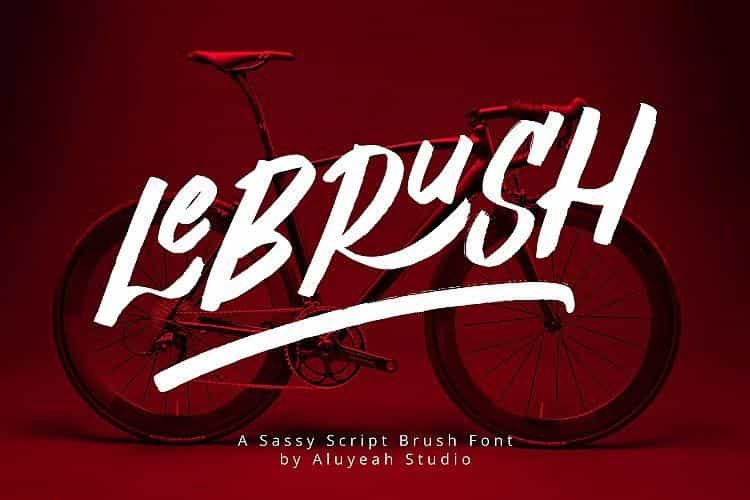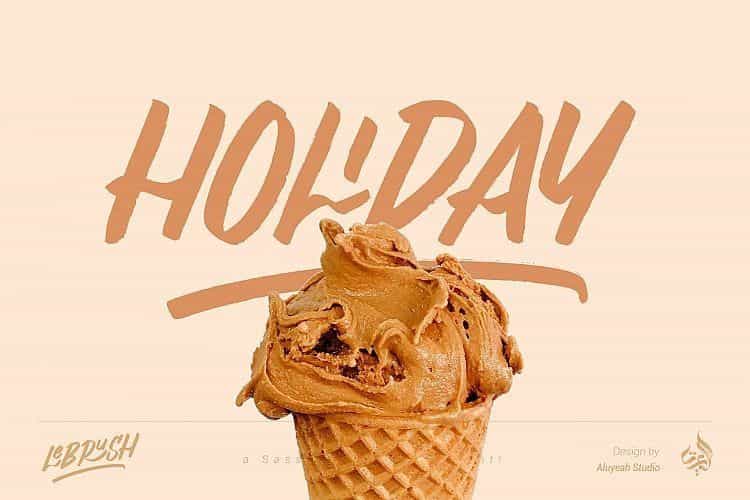
Al LeBRUSH is a hand brushed typeface, with realistic dry brush strokes and a striking bouncy baseline It comes with a matching complimentary marker font as well as a pack of swash. Perfect for logos, handwritten text quotes, product labels, website header, posters, T-shirts, social networks, and greeting cards.